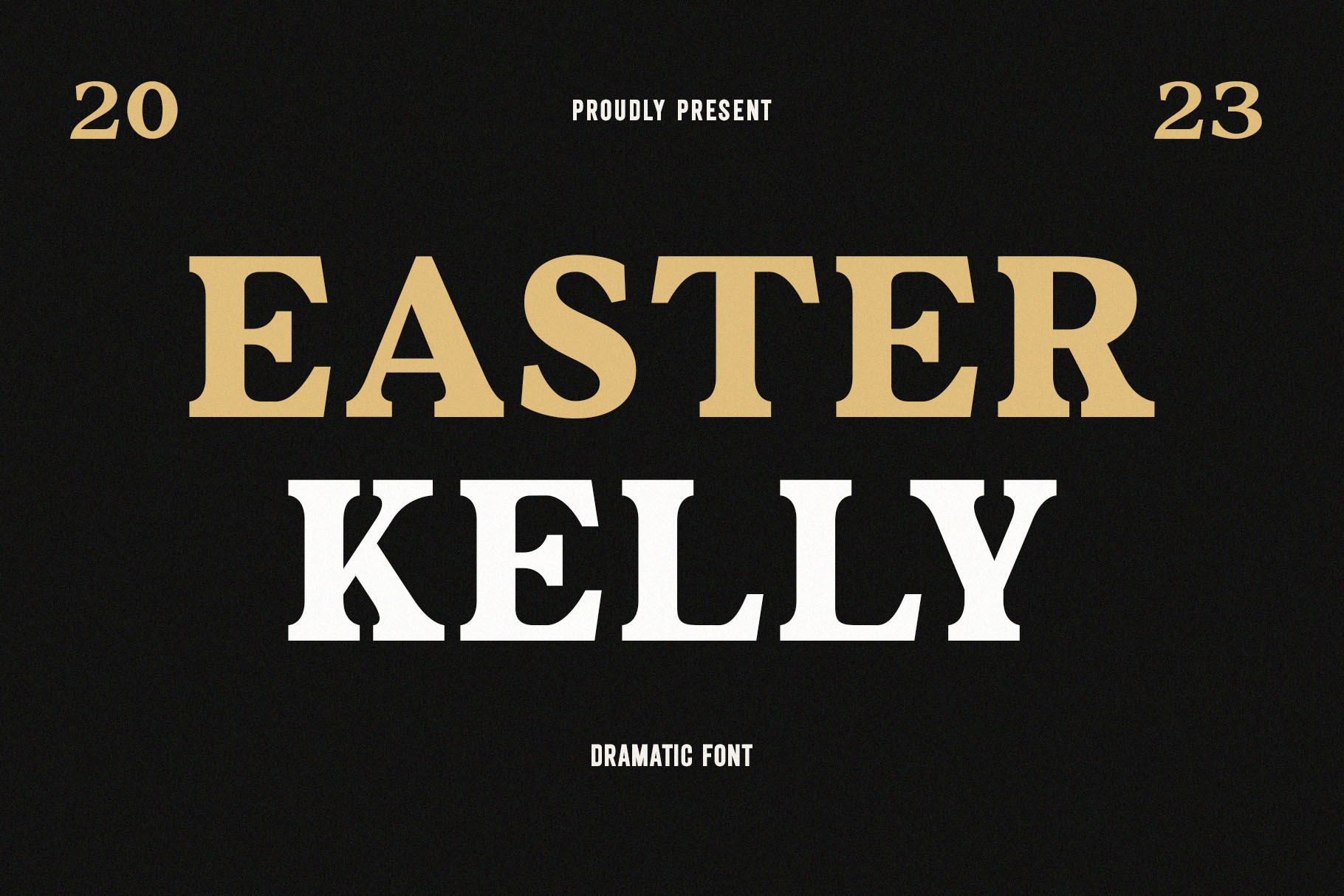
Easter Kelly - Dramatic Font
Introducing 'Easter Kelly' Font:
Explore the enchanting world of the 'Easter Kelly' font, featuring a beautiful series of letters meticulously crafted to enhance your writing experience. The neat lettering is specifically designed for modern and visually pleasing writing needs, striking a perfect balance between a contemporary feel and enduring elegance.
Unleash your creativity and have fun with this font product, as the results are guaranteed to be highly satisfying. Enjoy the versatility and creative possibilities that come with the 'Easter Kelly' font, allowing you to add a touch of uniqueness to your projects.
Ideal for:
- Classic Designs
- Beautiful Creations
- Advertising Campaigns
- Social Media Designs
- Magazines
- Personal Branding
- Ready for Creative Expression
- Immaculately Crafted Letters